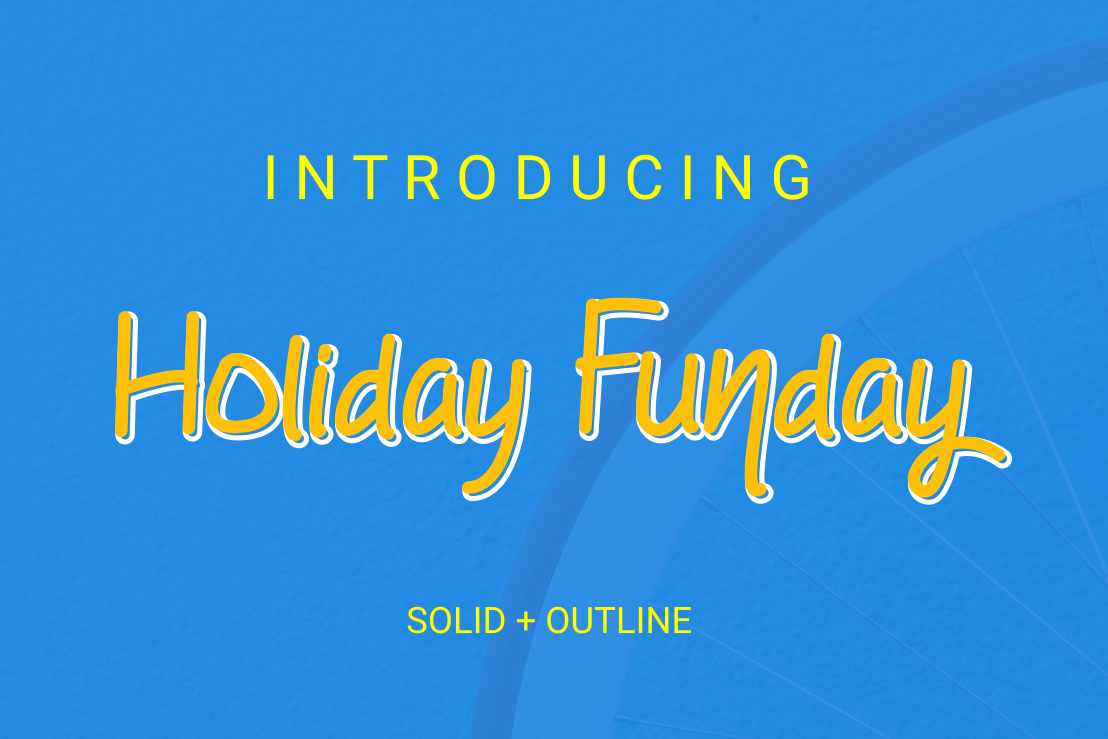
Holiday Funday font a fun handwritten font for your fun project. font suitable for logo, branding, poster and any design that you create.Files included: